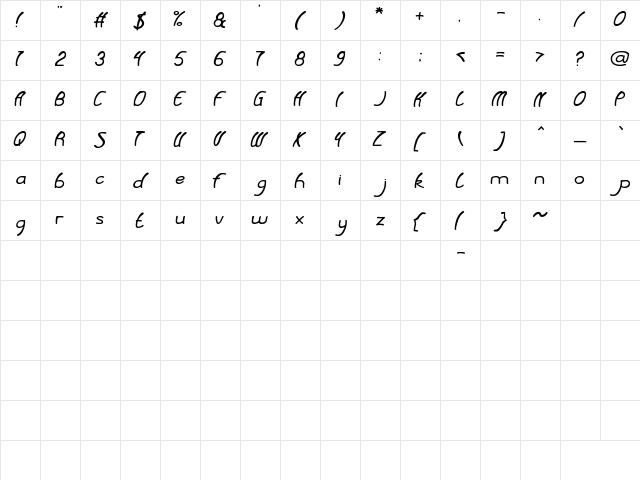
Baby Cuttie Regular Font Preview
Baby Cuttie Regular
Baby Cuttie Regular Font Details
Design Context for Baby Cuttie Typeface
Baby Cuttie is a composed and adaptable typeface that performs quietly and consistently across a wide range of design contexts.